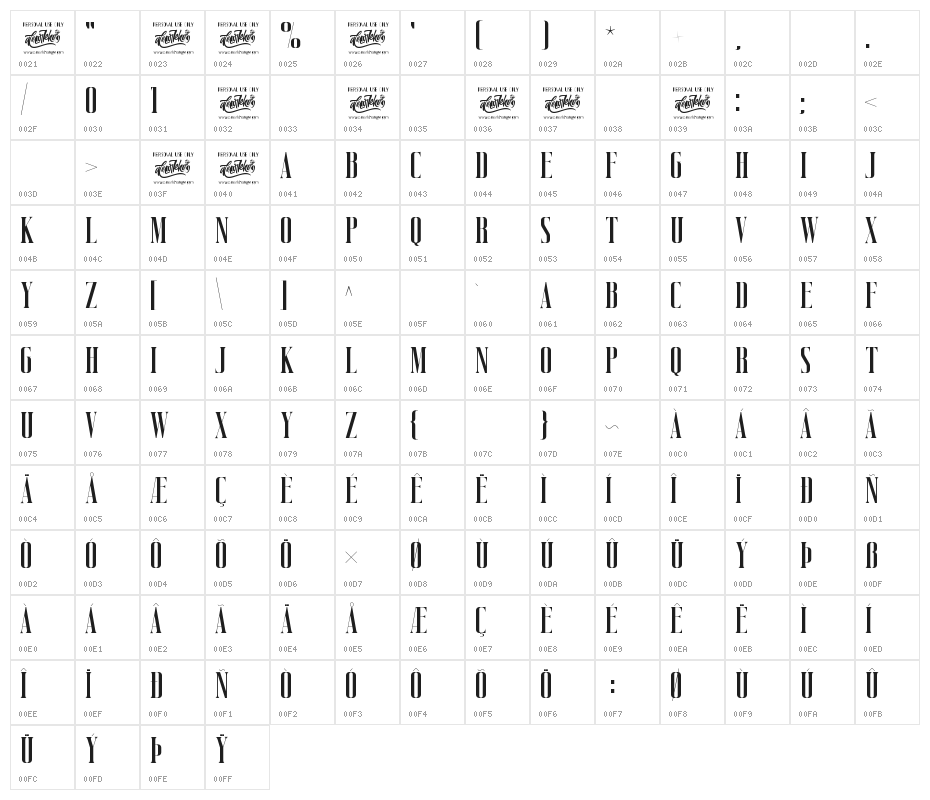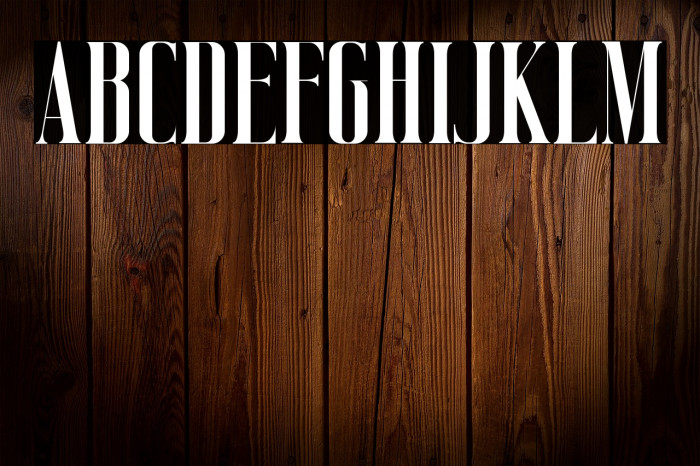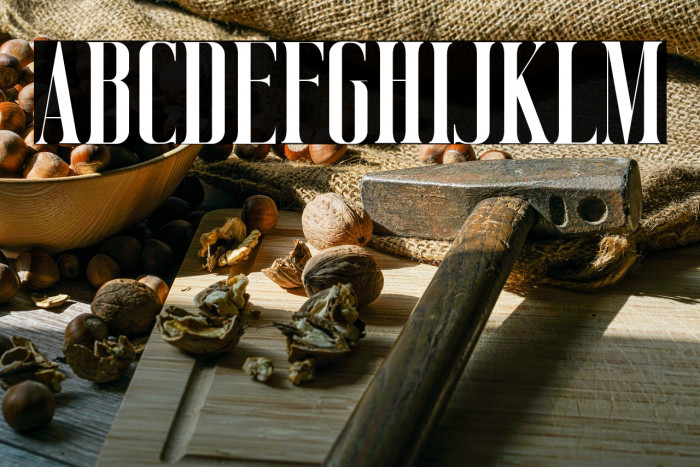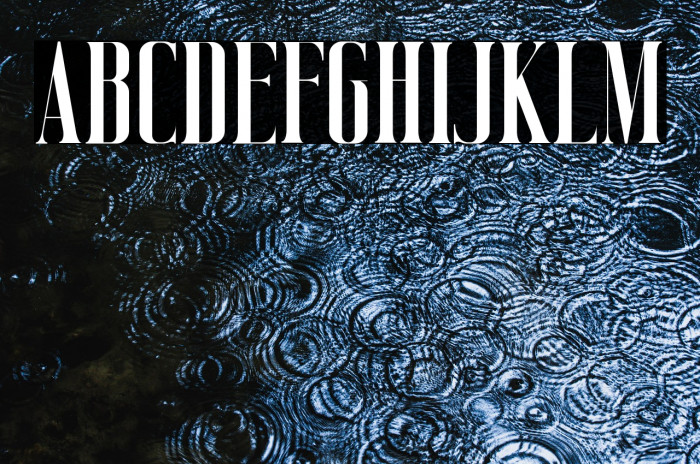
Vicenza Font
Vicenza Description
This font features a striking and elegant design with tall, narrow characters that exude sophistication. The uppercase letters are particularly elongated, with sharp, clean lines and a high contrast between thick and thin strokes. This gives the font a dramatic and stylish appearance, making it ideal for creating a strong visual impact. The characters are well-spaced, allowing for readability while maintaining a sense of luxury and refinement. The font's unique style is both modern and timeless, suitable for a variety of design applications.
| Overall Style | Modern, Elegant |
| Proposed Projects | Ideal for luxury branding, fashion magazines, high-end product packaging, and elegant invitations. |